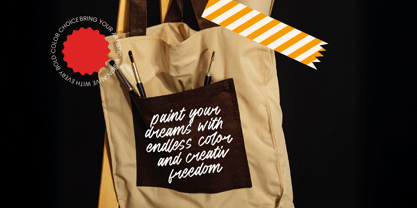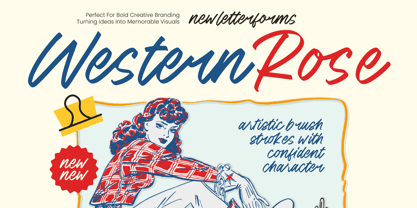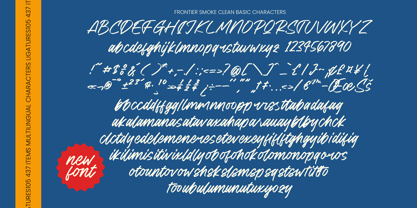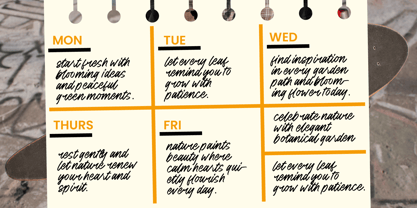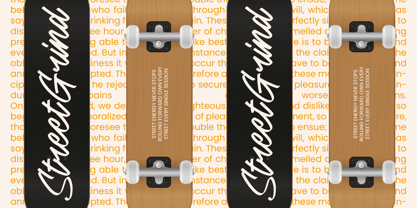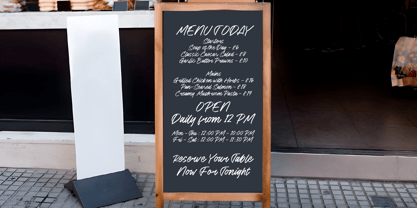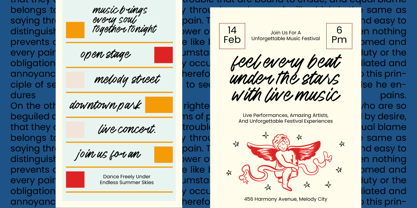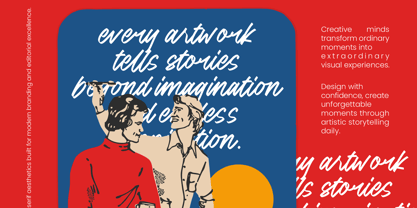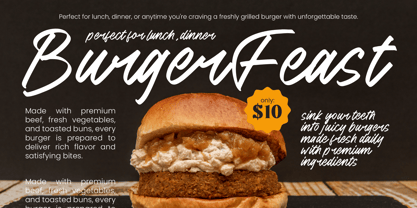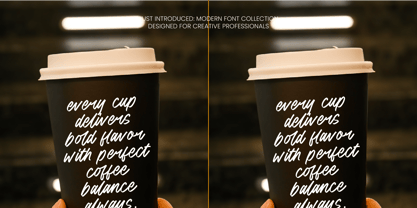
Western Rose
by Stylishtype Studio
The Western Rose Font Family was designed by Heru Utama Putra and published by Stylishtype Studio. Western Rose contains 2 styles and family package options. More about this family
Western Rose - Modern Brush offers a bold, expressive aesthetic that blends traditional artistry with contemporary style. The textured, energetic strokes of Western Rose - Modern Brush create a profound sense of movement and unapologetic confidence, making it the premier choice for brands seeking a distinguished visual identity. With over 105 bespoke ligatures and a total of 437 items, this typeface ensures that every design feels custom-crafted and entirely original.
Precision meets artistic freedom in this masterfully developed typeface. Beyond its striking visual appeal, Western Rose - Modern Brush is engineered for high-performance workflows and sophisticated typographic layouts. With its extensive multilingual support, Western Rose - Modern Brush adapts seamlessly across global markets, making it incredibly versatile for international projects. This technical flexibility allows designers to maintain brand consistency while reaching a diverse, worldwide audience with ease and professional polish.